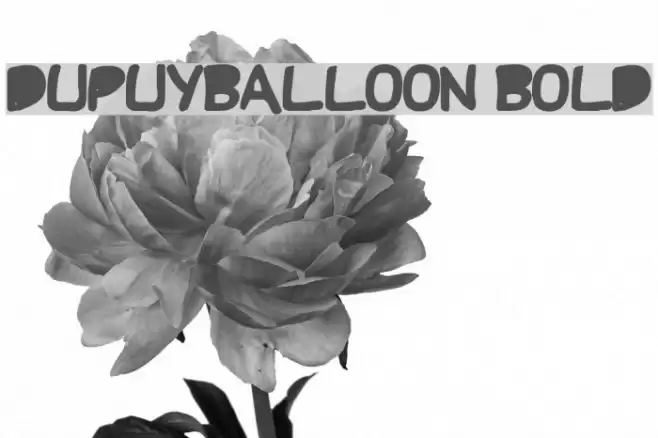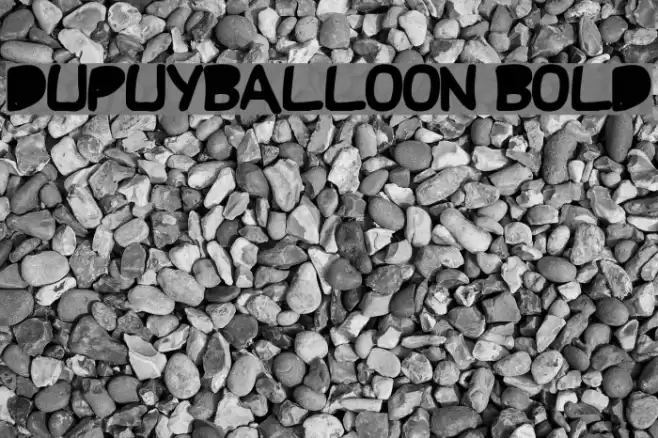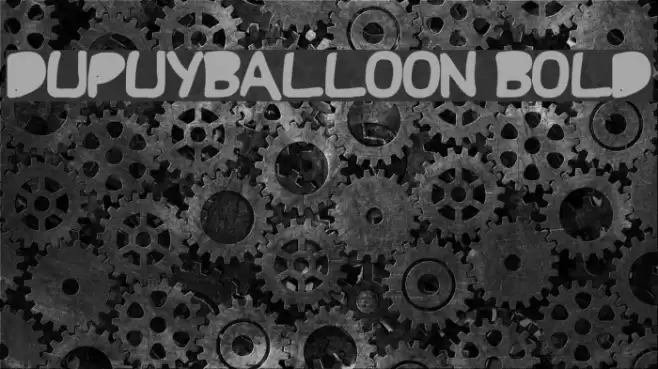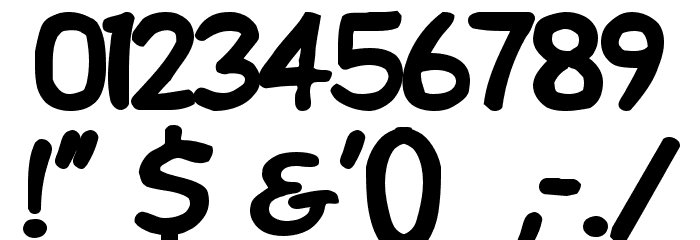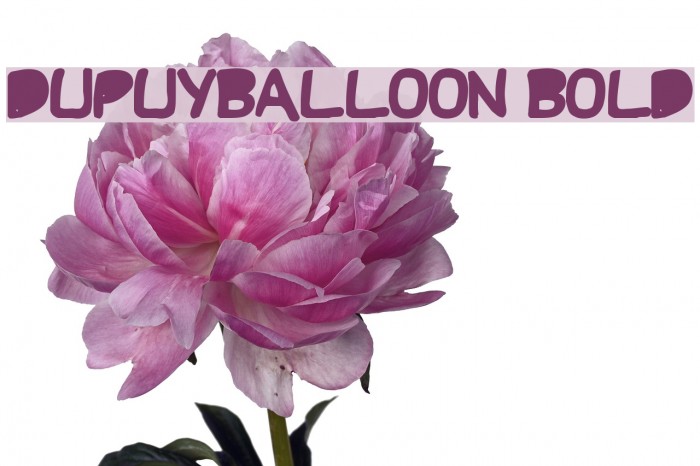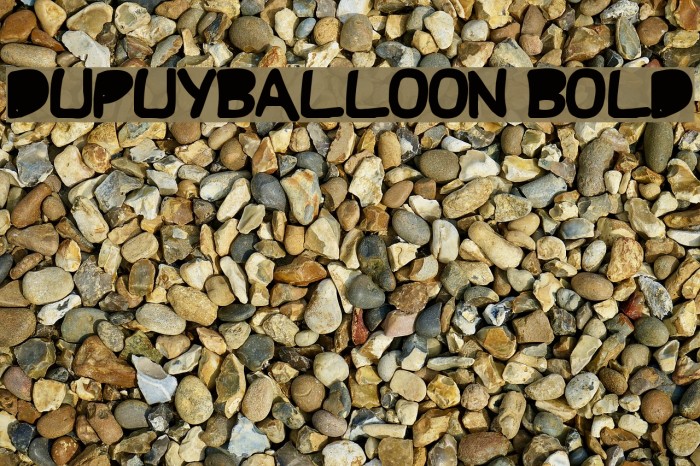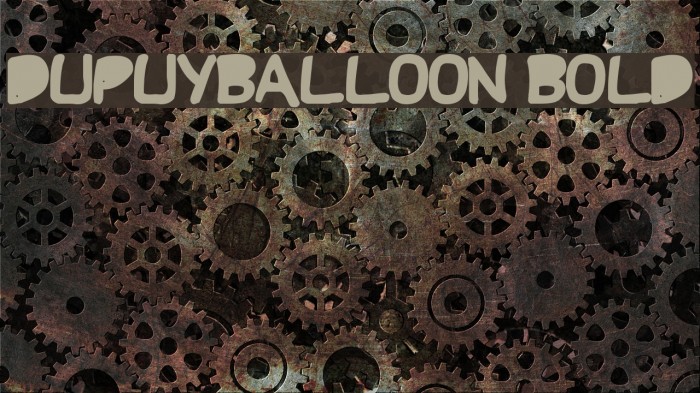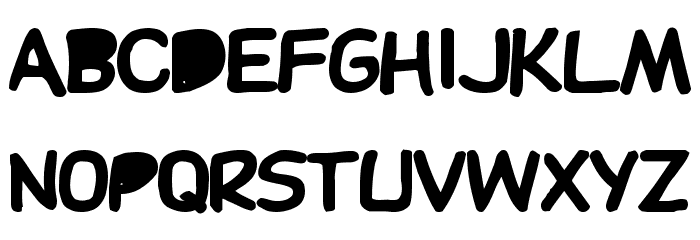
DupuyBALloon Bold Font
DupuyBALloon Bold Description
This playful and bold typeface features rounded, balloon-like characters that convey a sense of fun and whimsy. The letters are thick and substantial, with a consistent stroke width that gives them a strong presence on the page. The uppercase and lowercase letters maintain a uniform style, with rounded edges and a slightly inflated appearance. The numbers and special characters follow the same design principles, ensuring a cohesive look across all text elements. This font is ideal for projects that require a lively and informal touch, such as children's books, party invitations, or playful branding materials.
A bold, balloon-like font with rounded, playful characters from Uncategorized fonts.
- Proposed Projects: Ideal for children's books, party invitations, playful branding, and informal designs.
- Overall Style: Playful, Fun, Whimsical
- Use Case: Headlines, Logos, Invitations